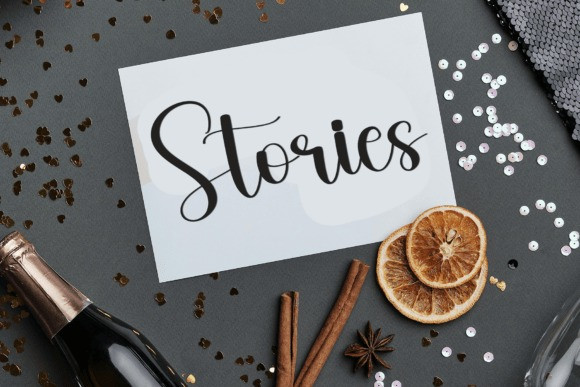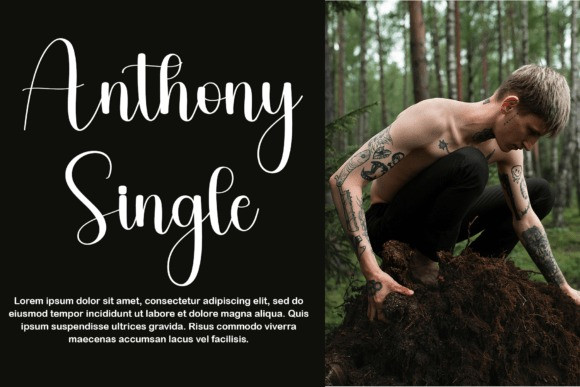
Deadline Script Font
Deadline Script Font is a modern handwritten script font with a smooth, flowing style and a touch of elegance. With its rounded curves and easy readability, this font works beautifully for planners, branding, quotes, and stylish social media graphics. Despite the name, Deadline gives your design a relaxed, handcrafted feel—ideal for when you want to keep things both neat and personal.